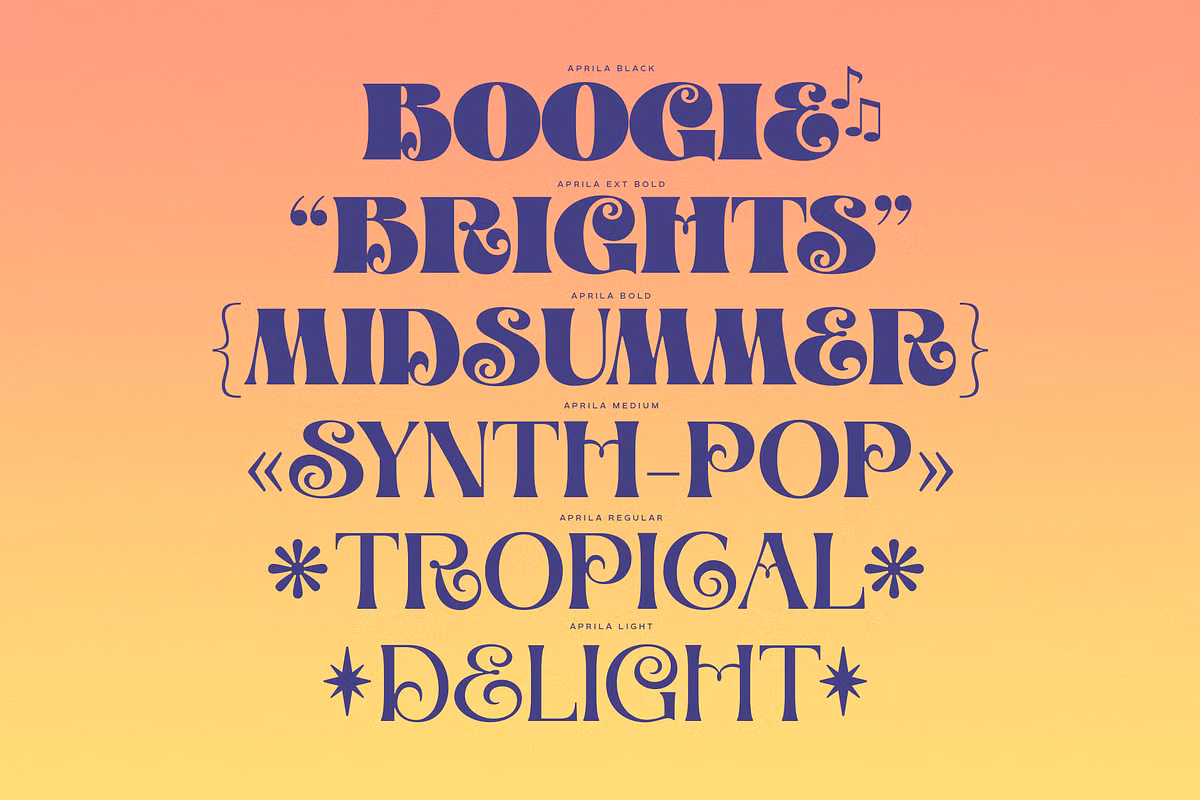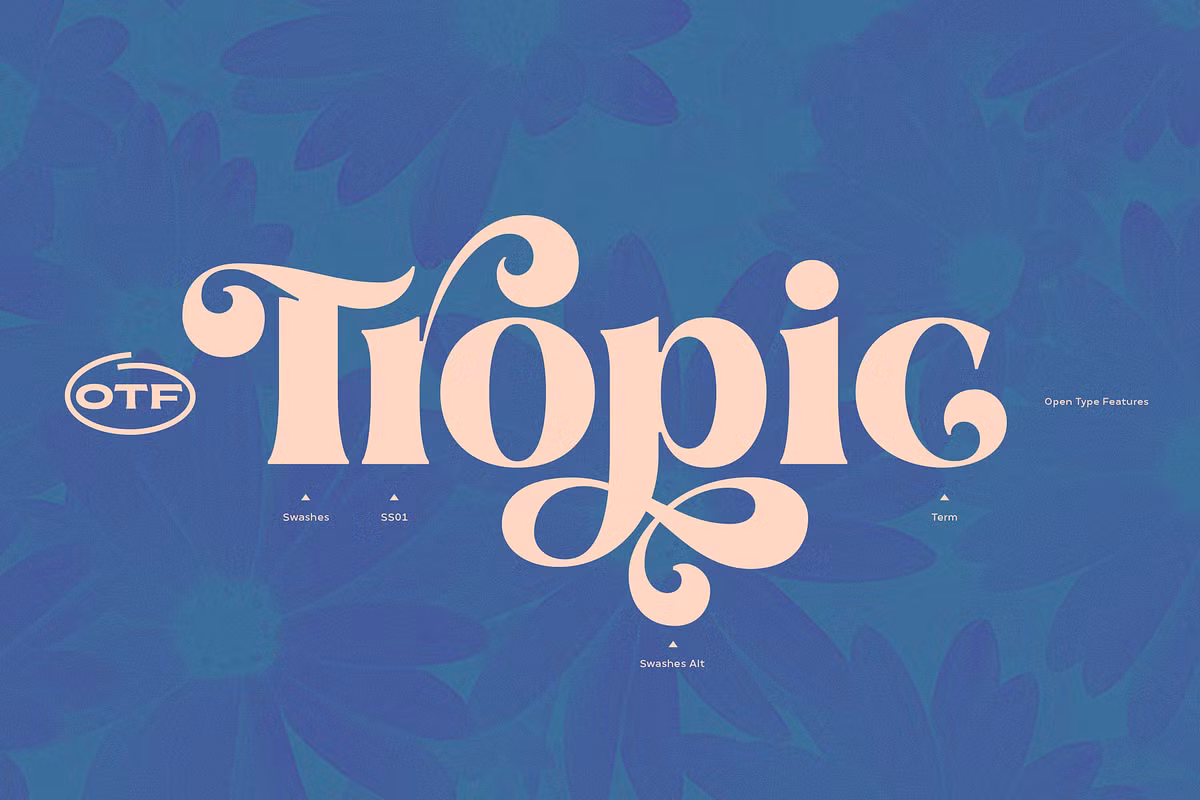
Aprila Font Family: Psychedelic Typeface Inspired by the 1960s
The Aprila font family is a really cool typeface that takes its inspiration from the famous Hippies Movement back in the 1960s. It’s all about capturing the vibe of psychedelic art, which is known for being super colorful and imaginative. This font is more than just a bunch of letters – it’s a way to represent a whole cultural era that was all about being creative and expressing yourself. With its bold, bright colors and intricate designs, the Aprila font can be a bit tricky to read, but that’s what makes it so unique and perfect for adding some personality to your design projects.
The way it combines different colors and patterns is really something special, and it’s sure to make your designs stand out. Whether you’re looking to add a bit of nostalgia or just want to create something totally new and original, the Aprila font family is definitely worth checking out. Its playful, artistic feel is sure to inspire you to think outside the box and come up with some amazing designs.
Design Style of Aprila Font
The Aprila font family has a really cool style that’s inspired by the psychedelic art of the 1960s. You can see it in the way the letters are shaped – they’re all curvy and flowing, like the colorful patterns that were popular back then. The edges are rounded and the curves are exaggerated, which gives the font a pretty organic feel.
When you look at each character, you can tell they were designed to make you feel happy and free, just like the hippie movement was all about. It’s like the font is capturing the spirit of that time, with its fun and playful vibe. The designers really nailed it, creating a typeface that’s perfect for anyone who loves the psychedelic style.
Whether you’re looking to add some personality to your designs or just want to evoke the feeling of a bygone era, the Aprila font family is a great choice. With its unique blend of style and nostalgia, it’s sure to make your designs stand out.
Character Sets and Language Support
The Aprila font family has a really cool feature – it can be used in lots of different languages. In fact, it supports over 75 languages, which is a lot. This means designers can use it for projects all around the world, and it will still look great. The font has something called Latin Extended characters, which helps it work with all these different languages.
So, whether you’re working on a project in Europe, Asia, or somewhere else, Aprila is a good choice because it can handle all the different languages and still look good. This makes it a great option for designers who work on international projects and want to make sure their work looks professional and polished, no matter where it’s being used.
Use Cases for Aprila Font
The Aprila font family is incredibly versatile and can be used across various design applications. Here are some effective use cases:
- Event Posters: The vibrant and psychedelic style of Aprila makes it perfect for promoting music festivals, art exhibitions, or cultural events that aim to attract a creative audience.
- Branding: Brands looking to convey a message of creativity and freedom can benefit from using the Aprila font in their logos, packaging, and advertising materials.
- Social Media Graphics: The eye-catching design of Aprila can substantially enhance social media posts, making them stand out in a crowded digital landscape.
- Merchandise: T-shirts, tote bags, and other merchandise featuring the Aprila font can resonate with those nostalgic for the 1960s era or those who appreciate artistic design.
Pairing Suggestions for Aprila Font
When using the Aprila font family, it’s essential to consider its pairing with other typefaces to create balanced and aesthetically pleasing designs. Here are some pairing suggestions:
- Sans-Serif Fonts: Pair Aprila with clean sans-serif fonts like Montserrat or Lato. The simplicity of these sans-serifs will complement the intricate design of Aprila, providing clarity and readability.
- Serif Fonts: When you want to add a classic feel to your design, think about combining Aprila with a serif font like Playfair Display. The mix of Aprila’s decorative style and the sophistication of serif fonts can make for a really eye-catching look.
- Geometric Fonts: Combining Aprila with geometric typefaces like Futura can create a modern and fresh look. The geometric shapes will balance the fluidity of Aprila, resulting in a harmonious design.
The possibilities are endless, and it’s perfect for anyone who wants to add a little freedom and artistic flair to their typography. By using the Aprila font family, you can tap into the creativity of the past while inspiring a brighter, more colorful future. With its unique style and versatility, it’s an amazing tool for making your designs truly unforgettable. Whether you’re looking to add some personality to your website, social media, or marketing materials, the Aprila font family is definitely worth checking out. So why not give it a try and see what kind of amazing things you can create?